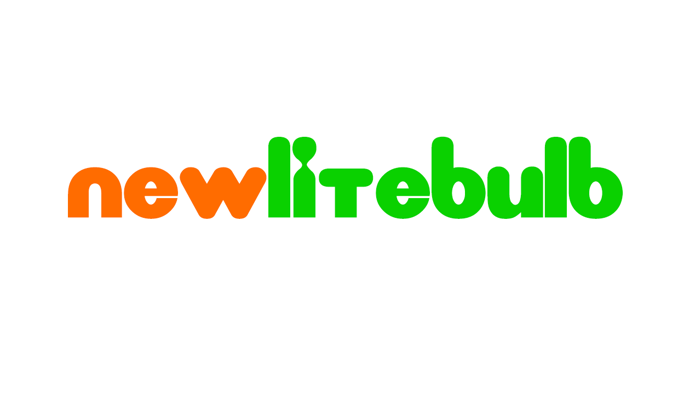
New LiteBulb Font
New LiteBulb
I decided to do another version of LiteBulb font. (resembles Nickelodeon logo).
I see that you used my version of the "Mignone" font to make this version.
@629Lyric Yeah, and I added more character glyphs.
@629Lyric Hmmm....maybe it's because you're not allowed to model fonts off of other fonts that copyright owners have made?
Change the lowercase T.
I’ve Seen You’ve Mixed Up CharlemagneSTD Font To Make This Version.
Why Are The Uppercase Letters And The Lowercase letters look the same
Looks Like Nickelodeon Logo